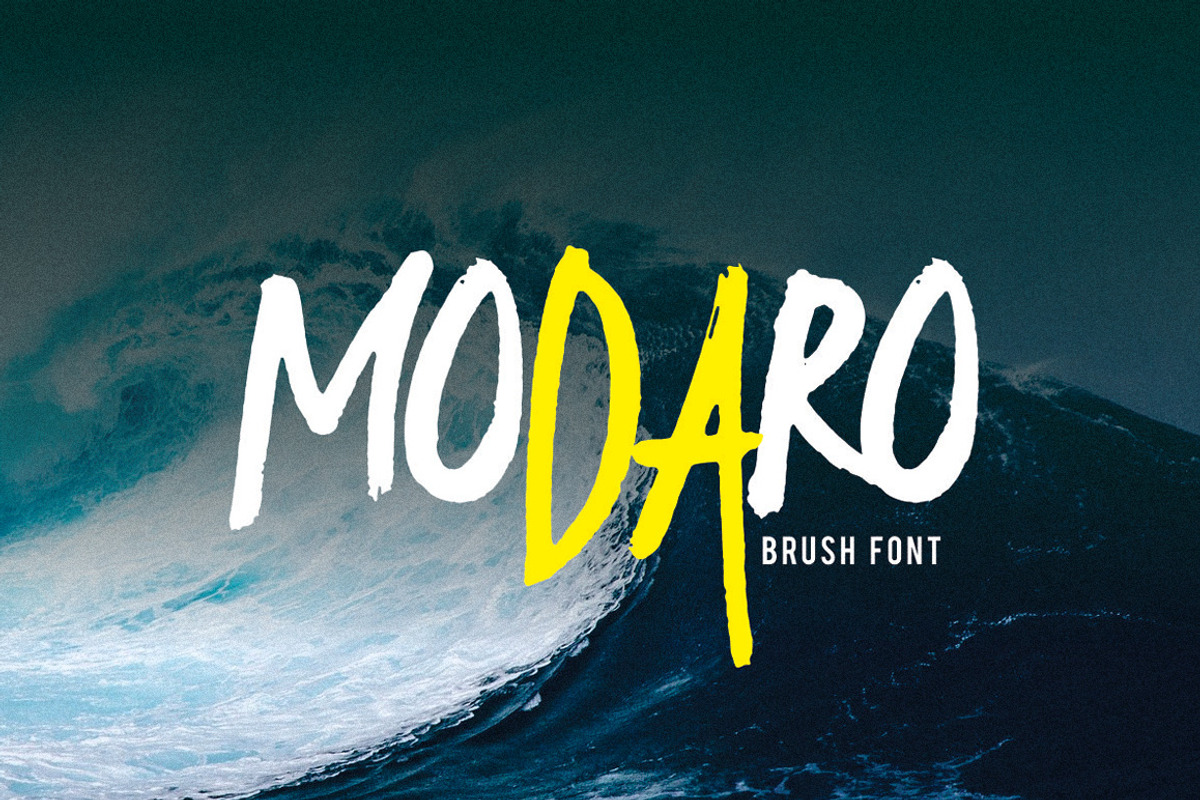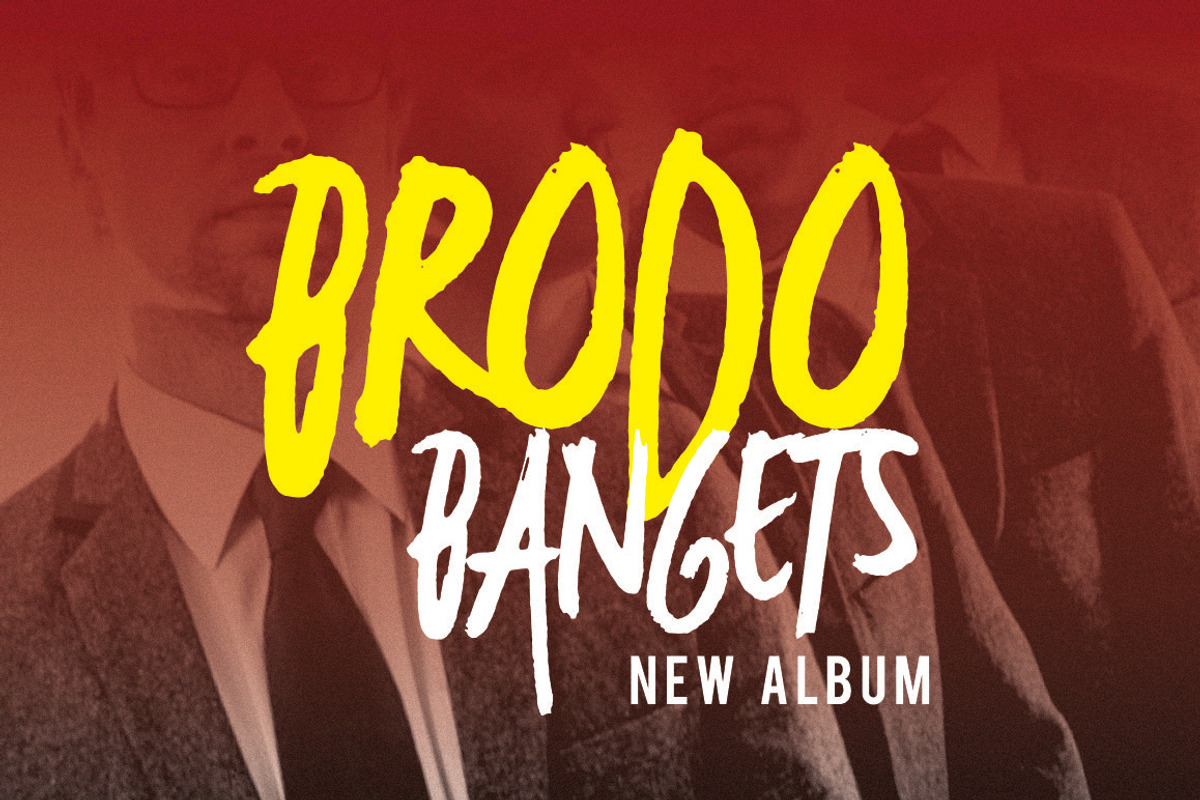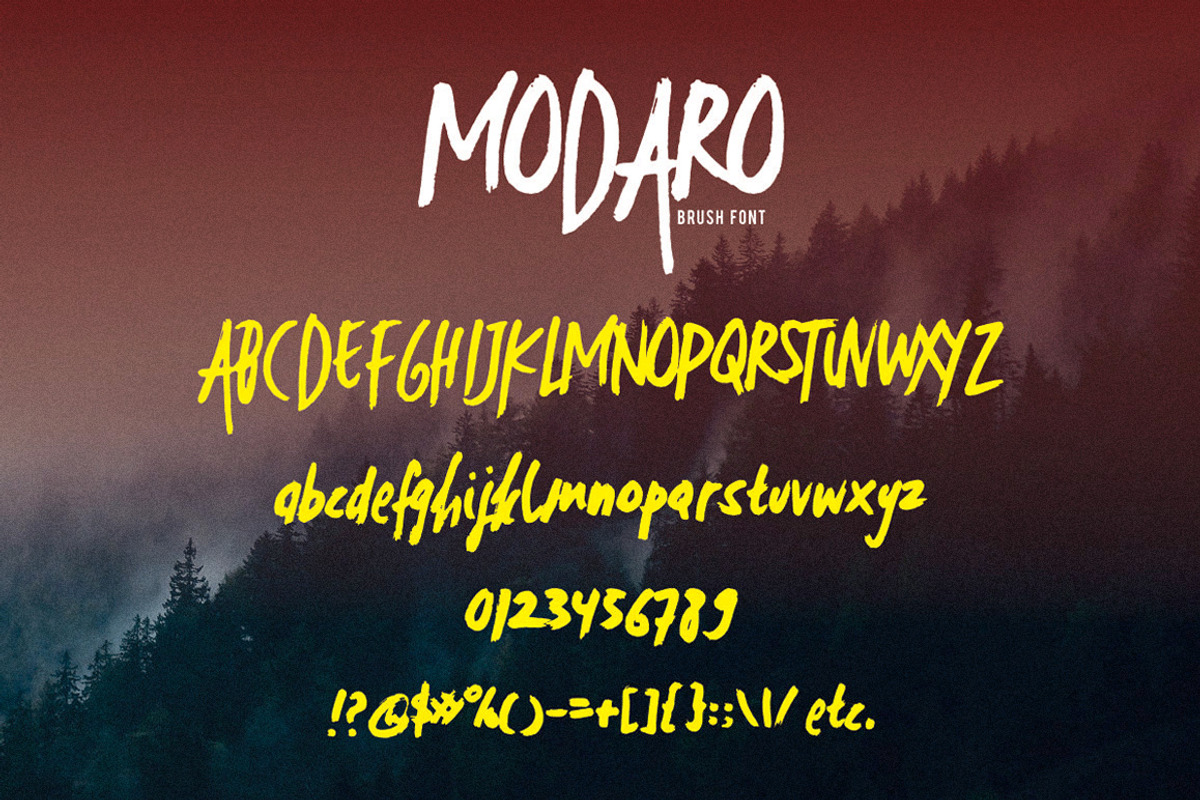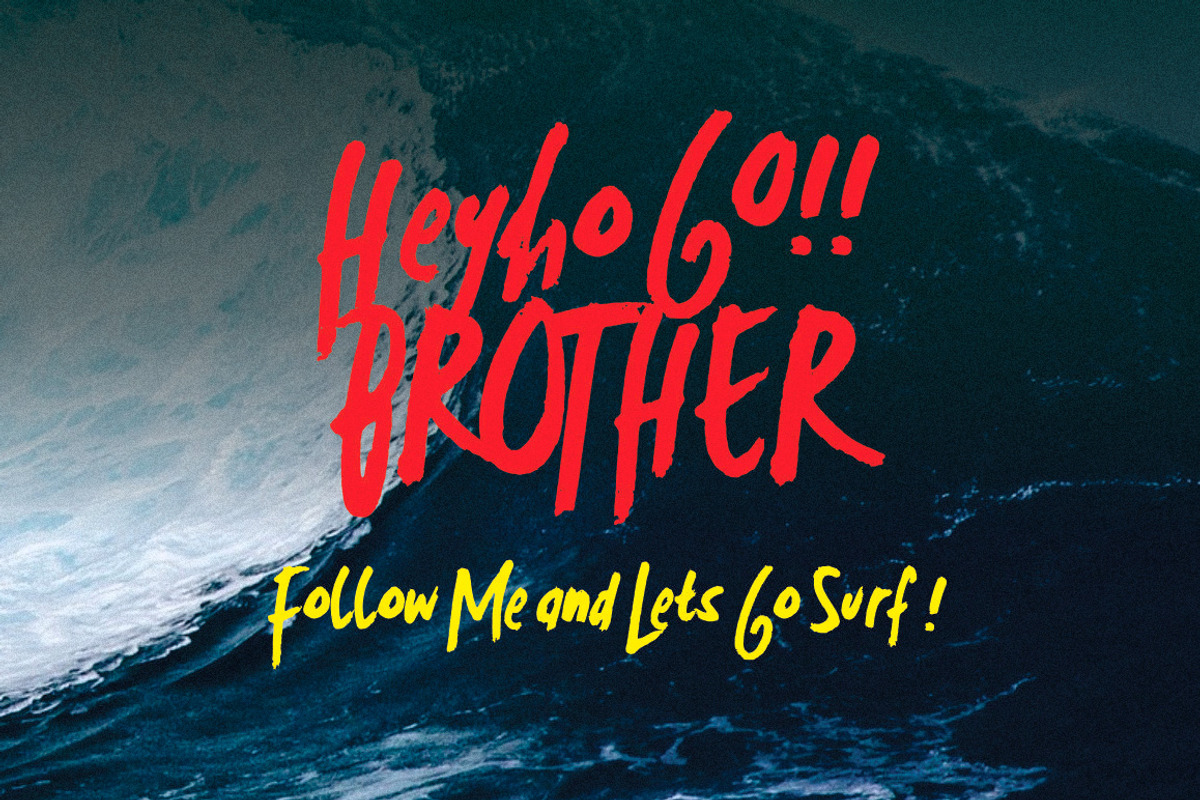
MODARO Brush Font
Modaro is a hand-drawn brush font with rough and bold letters. It's great for logos, branding, print projects and any attention drawing headline.
MODARO Brush Font by 160 Studio fits naturally into Branding, posters, packaging, typography.